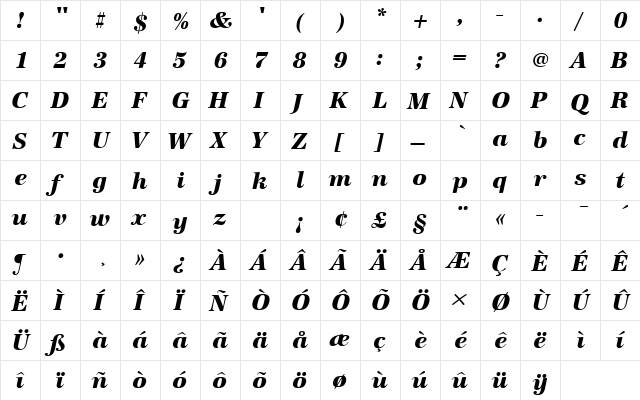
URWAntiquaTExtBolItaRo1 Regular Font Preview
URWAntiquaTExtBolItaRo1 Regular
URWAntiquaTExtBolItaRo1 Regular Font Details
Design Context for URWAntiquaTExtBolItaRo1 Typeface
URWAntiquaTExtBolItaRo1 offers clean, dependable letterforms without strong stylistic allegiance, making it a practical choice for designers who need flexibility.